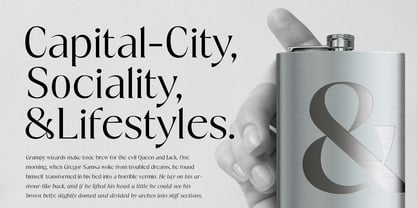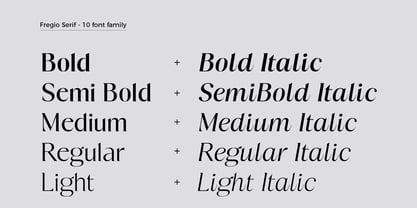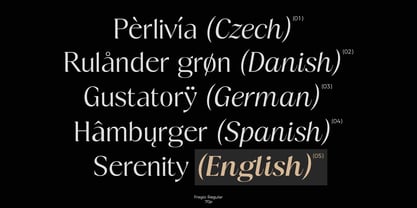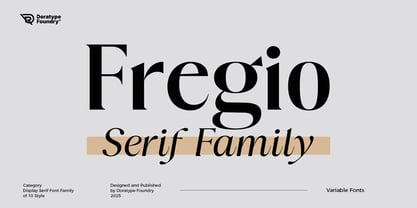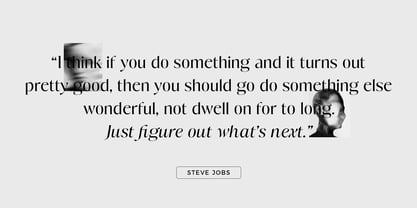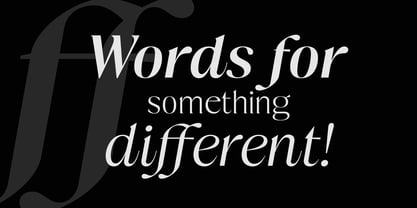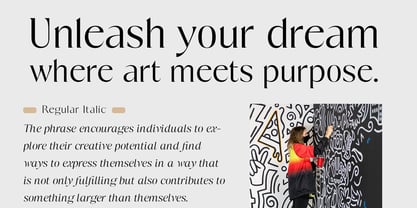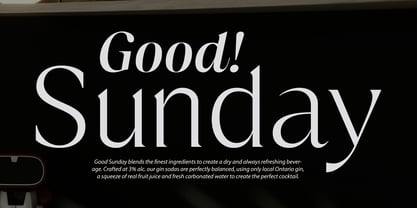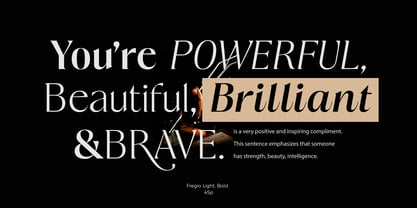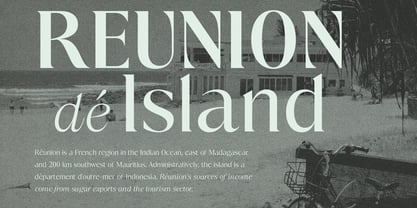
Fregio
by Dora Typefoundry
The Fregio Font Family was designed by Zahratul Laila and published by Dora Typefoundry. Fregio contains 12 styles and family package options.
The "Fregio" font from Doratype Foundry is an elegant and contemporary display serif font family, designed to convey a luxurious and classy impression. With a strong play of thick-thin contrast, the letterforms feature classic details such as sharp serif tips and soft curves that enhance the visual appeal. Suitable for editorial use, luxury branding, and bold typography designs, this font comes in 10 different styles and is available in variable font format, providing great flexibility in design exploration. Designed and published in 2025, Fregio highlights the distinctive character of modern serifs with a graceful artistic touch.
Designers: Zahratul Laila
Publisher: Dora Typefoundry
Foundry: Dora Typefoundry
Design Owner: Dora Typefoundry